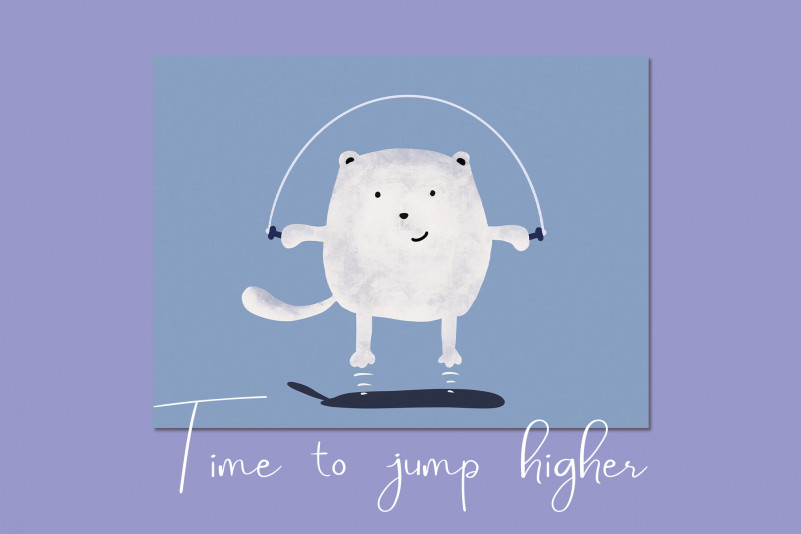
Jumping Font
Jumping Handwritten Font
This is a thin lettered and fashionable script font. Whatever the topic, this font will be a wonderful asset to your font library, as it has the potential to enhance any creation.